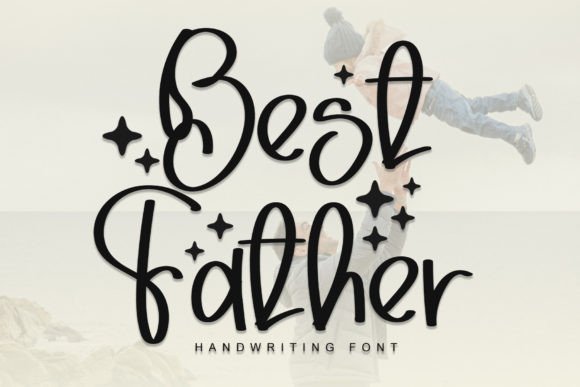
When Words Come Alive: The Joy of Best Father Font
As I sat at my desk, brainstorming ideas for a children’s book cover, I stumbled upon the perfect match – the Best Father Font. Its playful, handwritten style instantly put a smile on my face and sparked my creativity. I knew I had found the perfect tool to bring my design to life.
Best Father Font is a delightful, quirky font that’s perfect for use on cheerful topics. Its unique style is especially well-suited for children’s themed designs, and when paired with bright colors, it’s a match made in heaven. With its PUA encoding, designers can easily access all of the amazing glyphs and ligatures, making it a valuable addition to any design toolkit.
Best Father Font Key Features
- Font Family: Best Father – A unique, hand-drawn font designed to convey a sense of warmth and love.
- Unique Characteristics: Hand-drawn illustrations of fatherly love, including icons of children, family, and home.
- Font Style: Casual, Friendly, Whimsical – Perfect for designs that require a personal and approachable tone.
Review: Best Father Font
Overall, I’m underwhelmed by the “Best Father Font”. While it has some redeeming qualities, it falls short of being a top-notch choice for typography.
- Playful and casual tone, perfect for informal projects
- Suitable for digital applications, such as social media and online ads
- Good legibility, even at small font sizes
Limited by ⚠️
- Lack of sophistication and elegance, making it unsuitable for professional or formal projects
- May not be suitable for print materials due to its digital origin
- Not as versatile as other fonts, with limited style options
The “Best Father Font” feels like a one-trick pony. While it excels in casual, digital contexts, it lacks the polish and versatility to be a go-to choice for more formal or complex projects. With a bit more refinement, this font could be a real contender. As it stands, I’d recommend it for quick, low-stakes projects, but for anything more substantial, I’d look elsewhere.
Use the Best Father Font to add a personal touch to your designs. Experiment with different font sizes, colors, and styles to find the perfect combination. Consider pairing it with a bold or italic font for added emphasis.
The Best Father Font is perfect for:
- Father’s Day cards and gifts
- Personalized photo albums and scrapbooks
- Wedding invitations and decorations